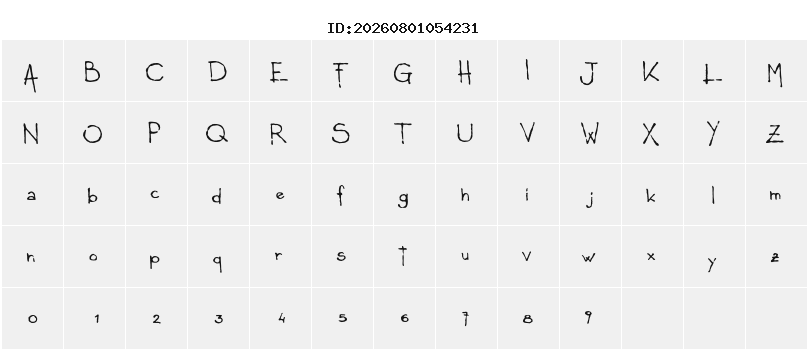
LUDICO Preview
• Font Name: LUDICO
About LUDICO.otf
LUDICO.otf is a modern, elegant sans-serif font designed for ultimate readability and visual harmony. Perfect for branding, headlines, web design, and print materials.